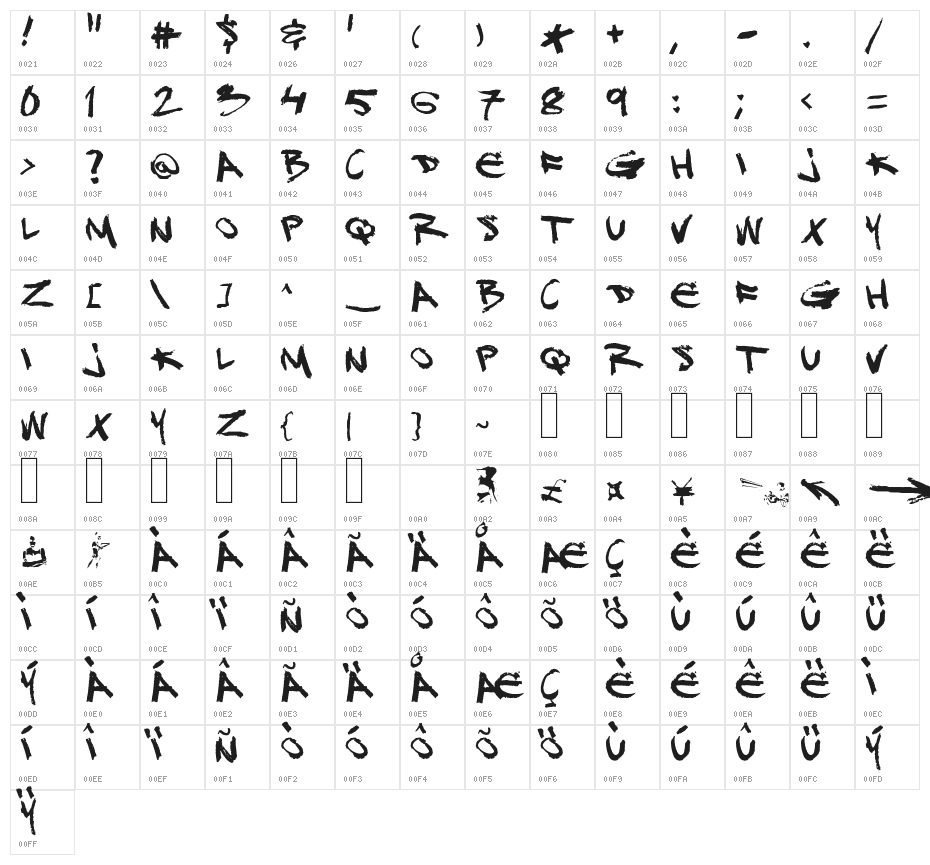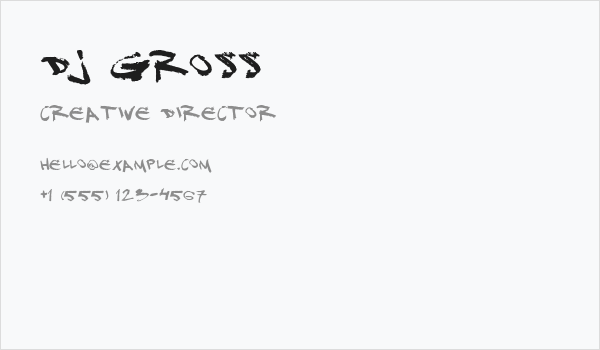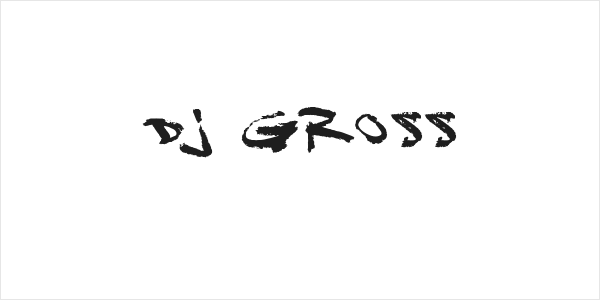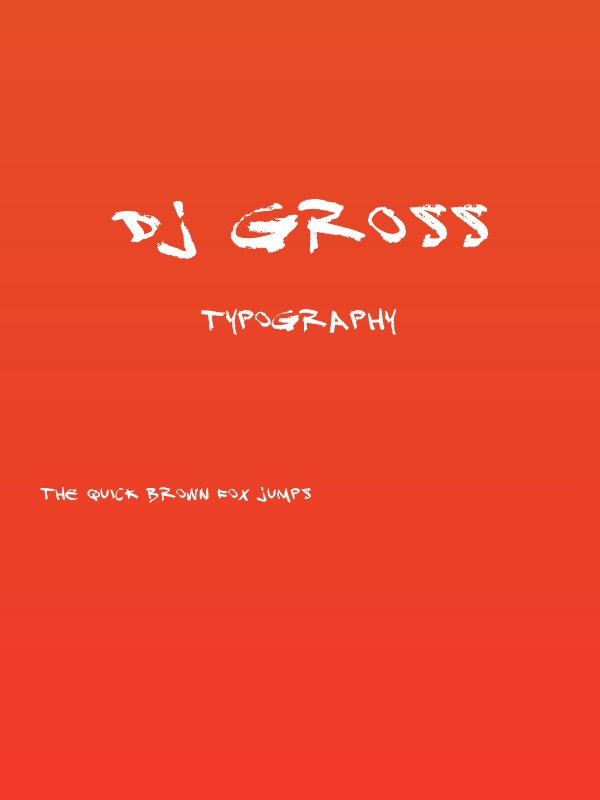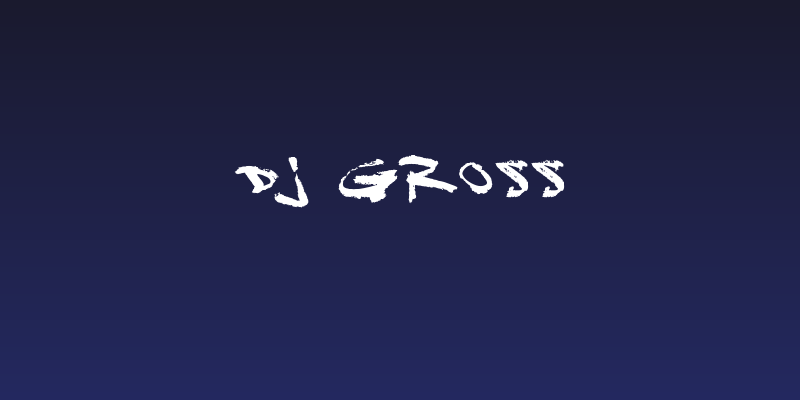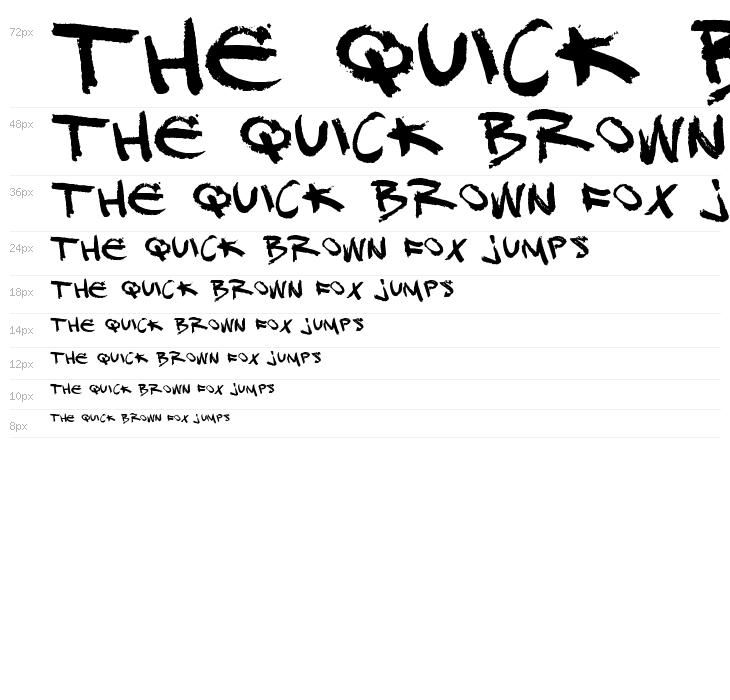
DJ Gross Font
DJ Gross Description
This font exhibits a bold, expressive style with a brush-like texture, giving it a dynamic and energetic appearance. The characters are irregular and slightly chaotic, with varying stroke thickness that adds to its artistic flair. The uppercase and lowercase letters maintain a consistent style, while the numbers and special characters complement the overall design. The font's rough edges and uneven lines suggest a hand-drawn quality, making it suitable for projects that require a personal or creative touch. Its unique style can capture attention and convey a sense of movement and spontaneity.
Proposed ProjectsIdeal for artistic projects, posters, album covers, and branding that seeks to convey creativity and energy.